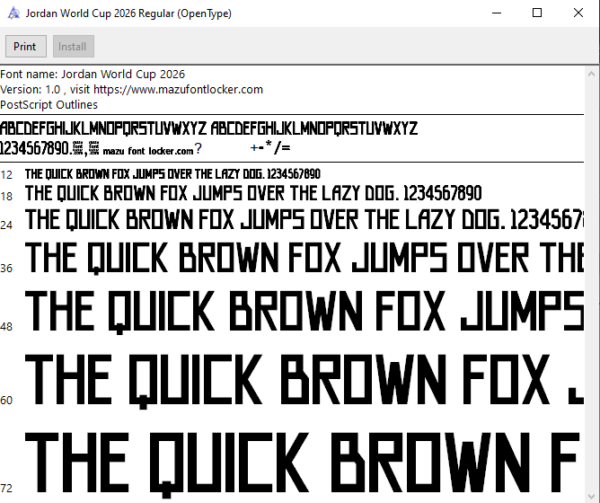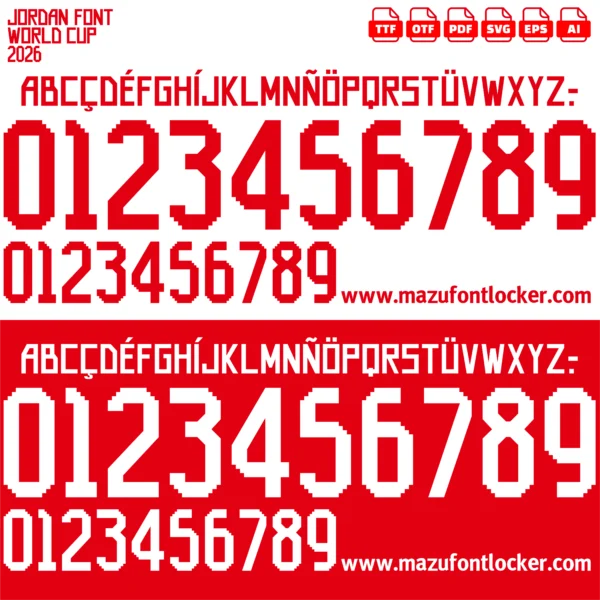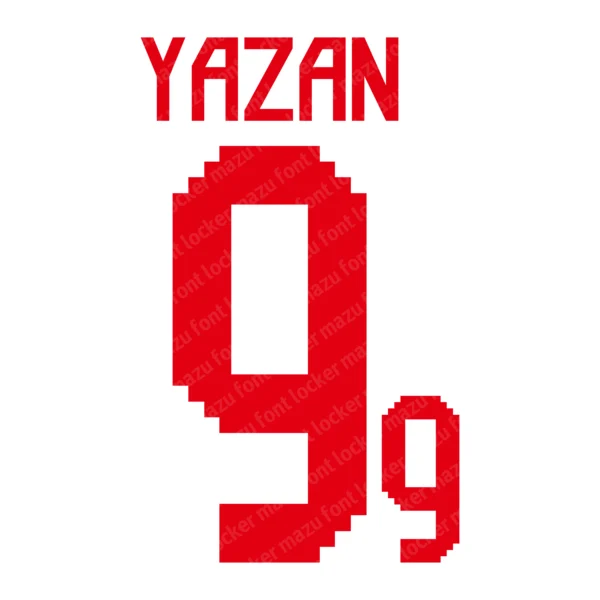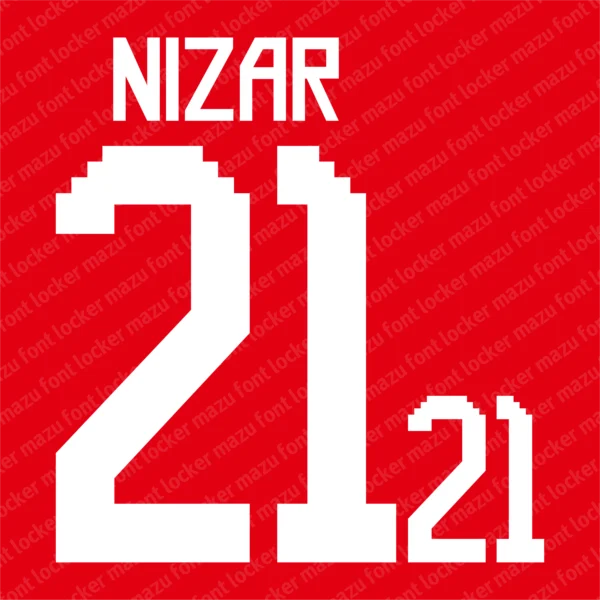
Jordan World Cup 2026 Font Vector – Epic Al-Nashama Masterpiece
This premium font captures the commanding, majestic, iron-willed war-machine lettering that embodies the unstoppable Jordanian spirit — delivering raw Arabian fire, explosive national pride, unbreakable resilience, tactical dominance, legendary warrior grit, and the roaring passion of the brave desert lions that made the world tremble.
Jordan World Cup 2026 Font Vector – Authentic Nashama Typeface
The Jordan World Cup 2026 Font Vector is a premium typeface that accurately recreates the official match lettering worn by the Jordan national team during the 2026 FIFA World Cup campaign. This high-quality vector font kit captures the bold, dynamic, and modern typography that represents the pride, passion, and rich football heritage of the Nashama.
Designed for professional designers and passionate Jordan fans, the Jordan World Cup 2026 Font Vector delivers perfect authenticity for creating realistic jersey mockups, fan merchandise, matchday posters, social media graphics, and Jordanian football content. It pairs beautifully with the iconic red, white, and green kit featuring the famous Jordan crest.
Why Choose Jordan World Cup 2026 Font Vector
This font stands out because of its sharp vector precision and strong national identity. Every letter and number is crafted to match the exact style used on the players’ shirts during the 2026 World Cup campaign. Whether you are making realistic kit templates or exciting Nashama content, the Jordan World Cup 2026 Font Vector gives your designs that authentic Jordan look.
The letterforms in the Jordan World Cup 2026 Font Vector are tall, bold, and highly readable. The strokes have a strong, clean weight with excellent edge definition that looks powerful on the back of jerseys while maintaining classic Middle Eastern spirit and modern strength.
• Full uppercase A–Z and numbers 0–9 in authentic Jordan World Cup 2026 style
Jordan World Cup 2026 Campaign
The 2026 FIFA World Cup saw the Nashama make a proud appearance on football’s greatest stage. Jordan delivered passionate and disciplined performances, showcasing technical skill, tactical organization, and the fighting spirit that defines West Asian football.
Veteran stars and emerging talents united to create memorable moments for the nation. The campaign further strengthened Jordan’s growing reputation as a competitive force in AFC and world football.